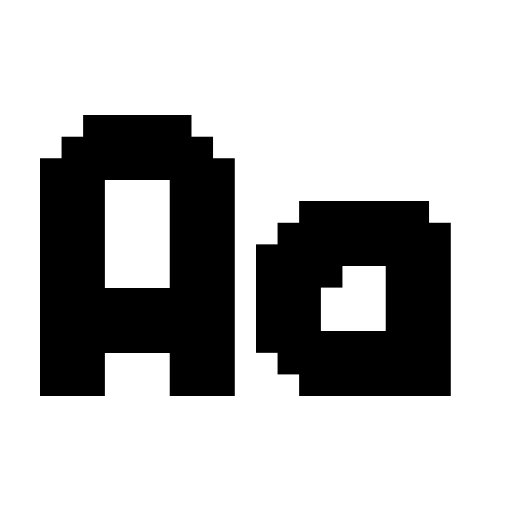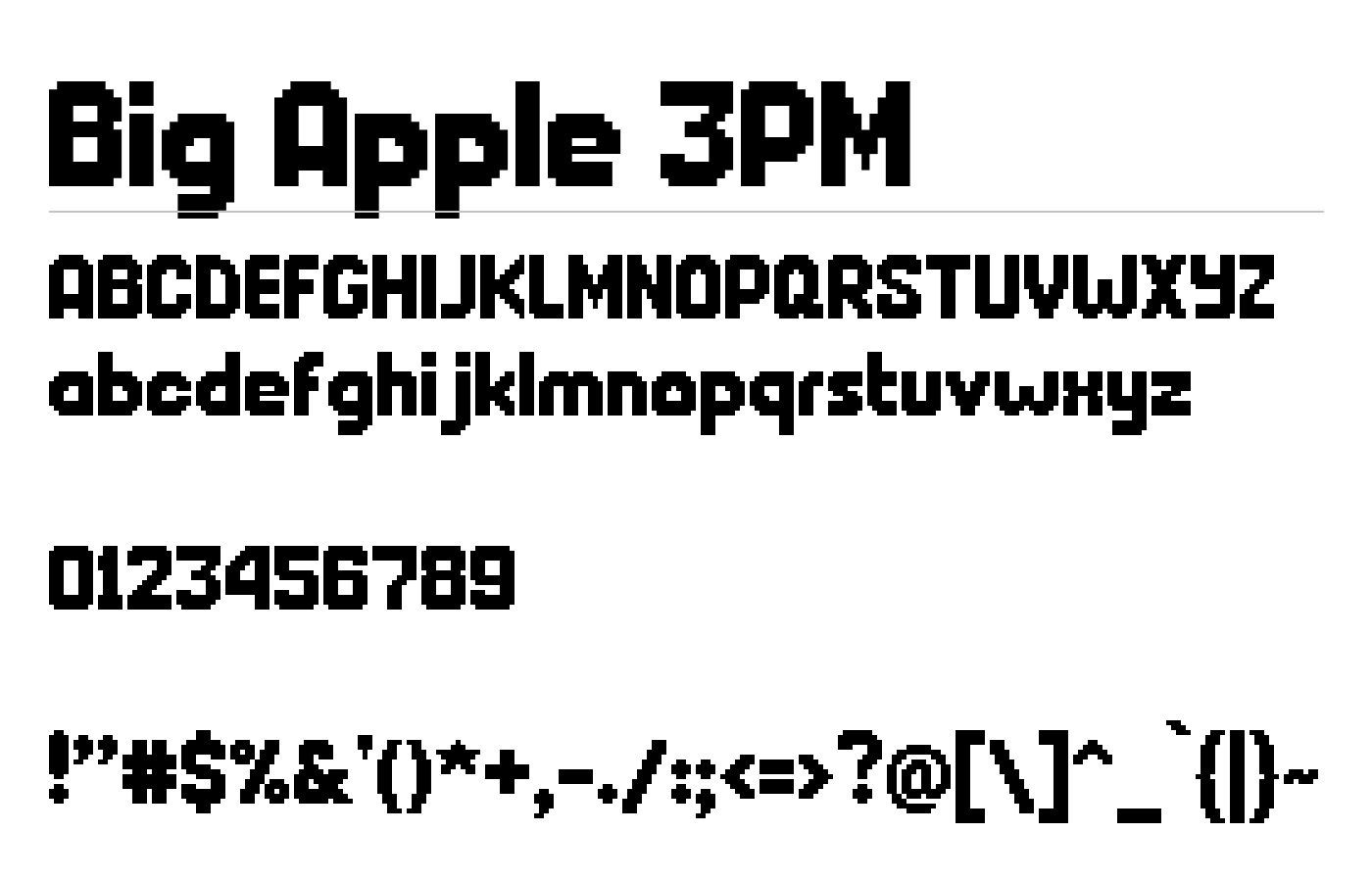
Big Apple 3PM is a bold, pixel-style sans serif font with a strong blocky appearance and a retro digital feel. Its uniform stroke weight, monospaced-like spacing, and geometric shapes make it ideal for use in gaming, tech, or vintage computer-inspired designs, lending a playful yet sturdy personality that works well in headlines, logos, and display contexts.
Big Apple 3PM Font
About Big Apple 3PM Font
| Designer | Caveras / Cliff Modes |